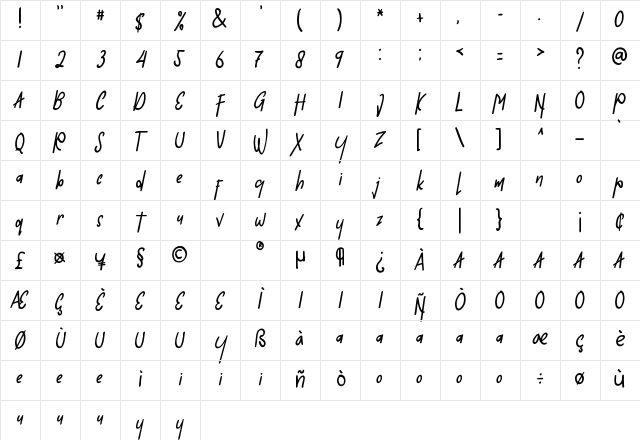
Against History Regular
Design Context for Against History
Against History is a composed and adaptable typeface that performs quietly and consistently across a wide range of design contexts.